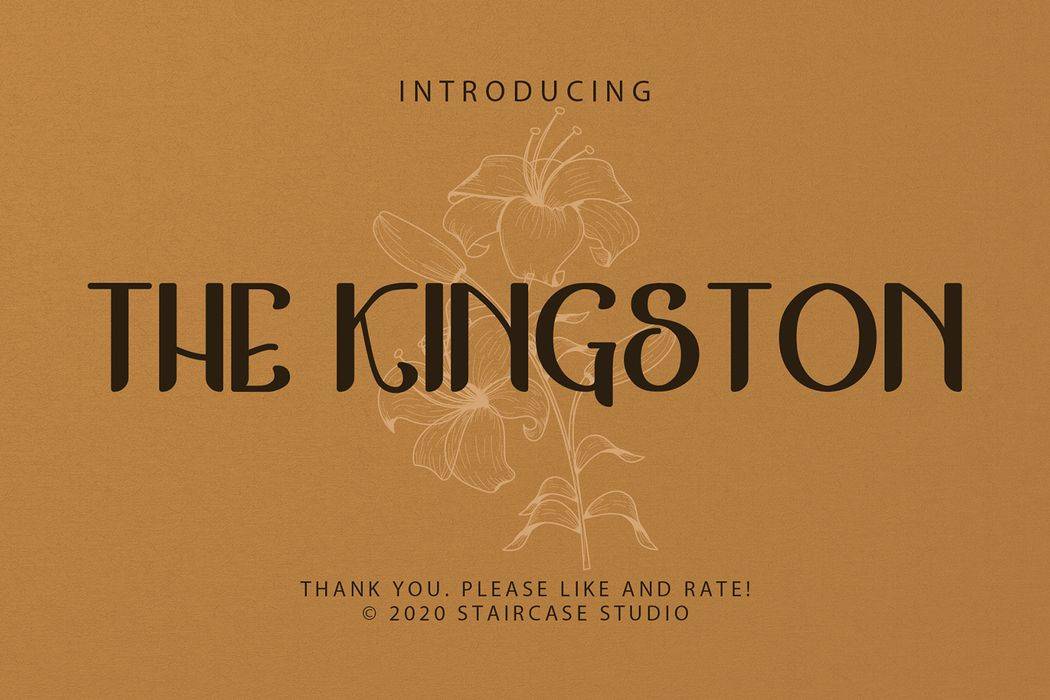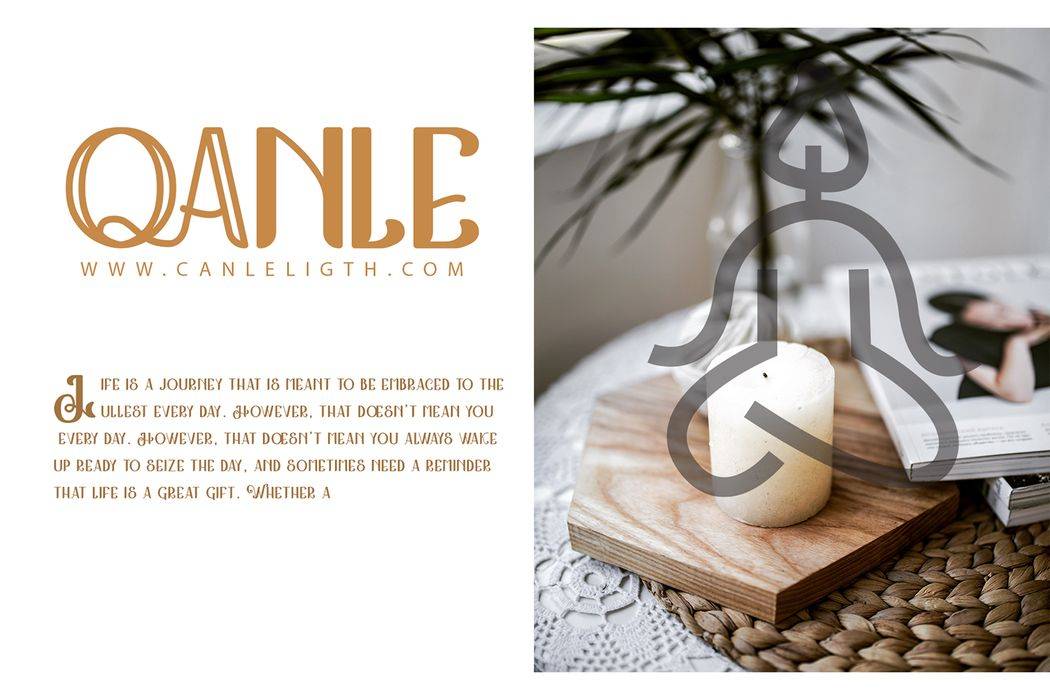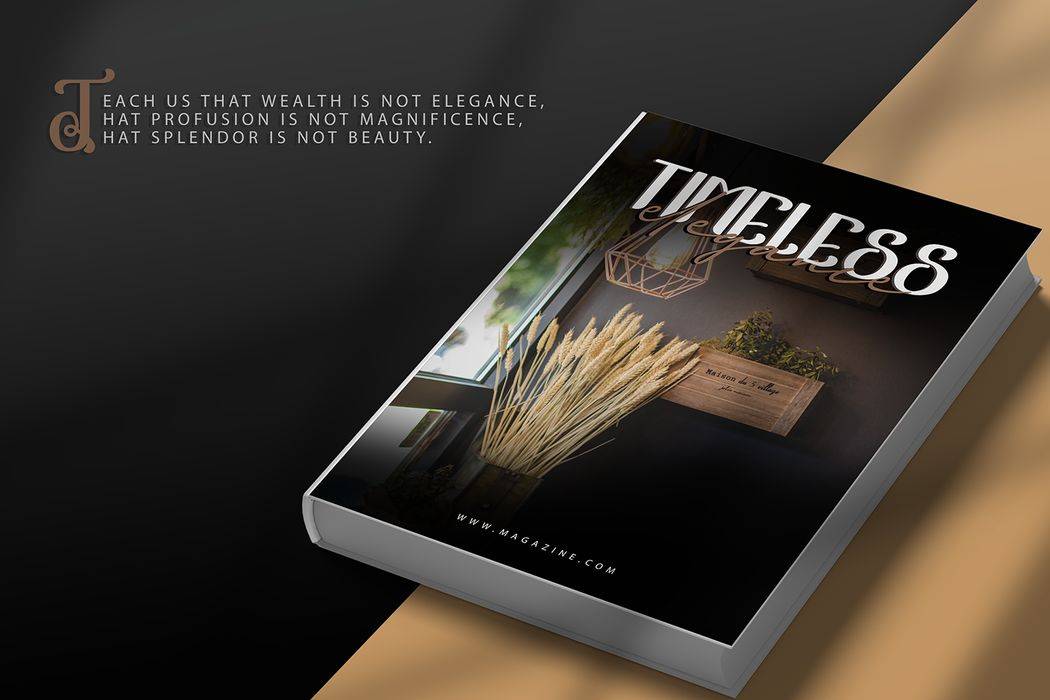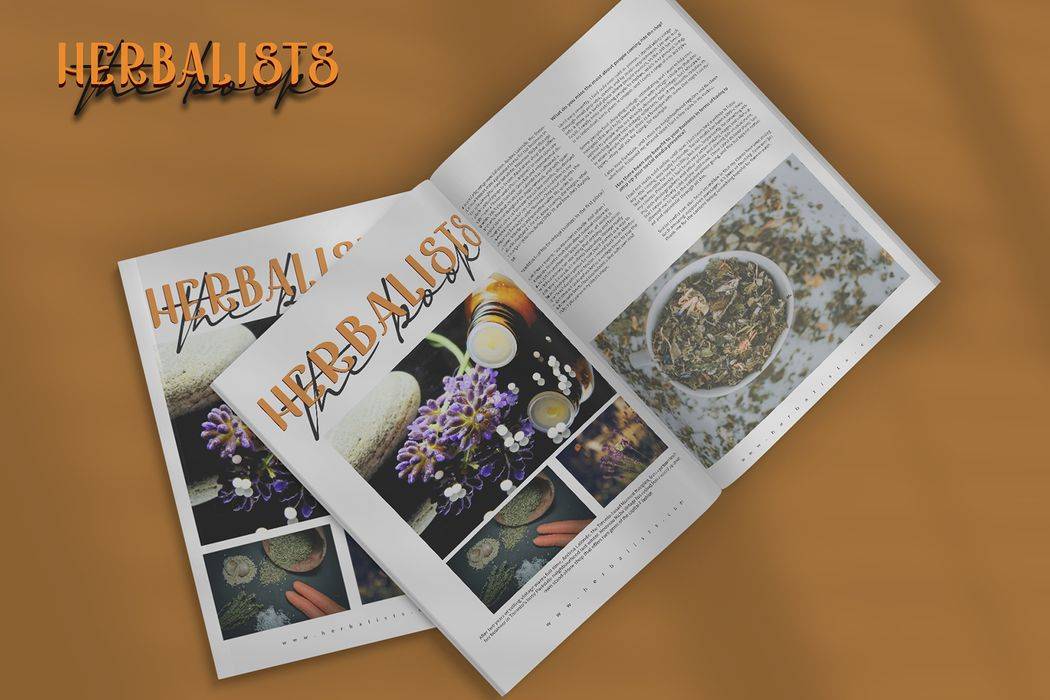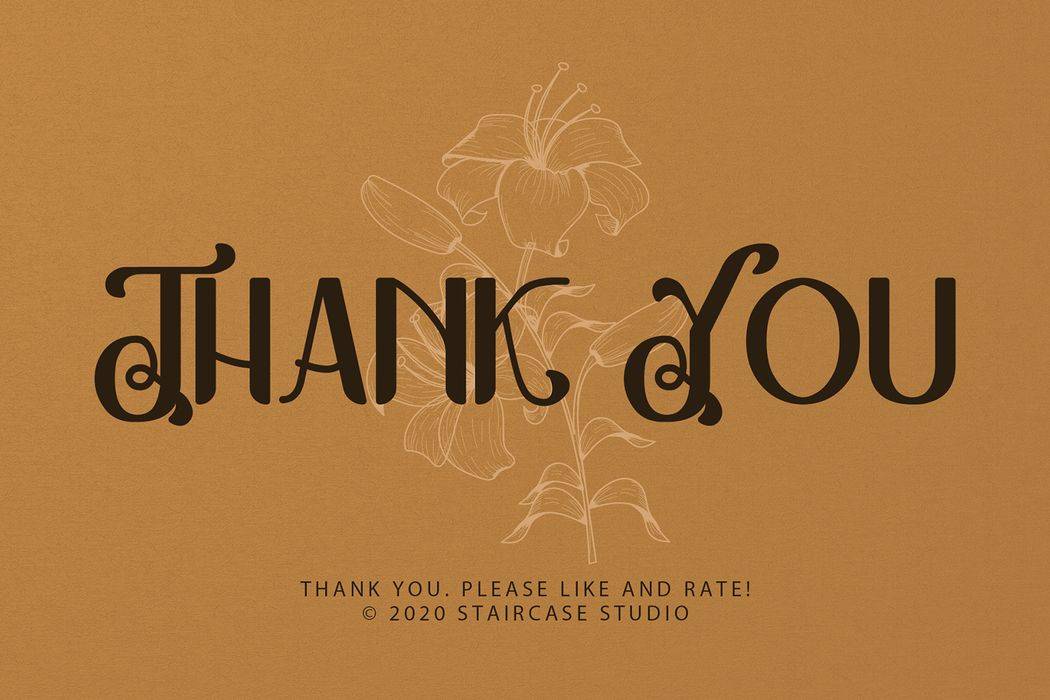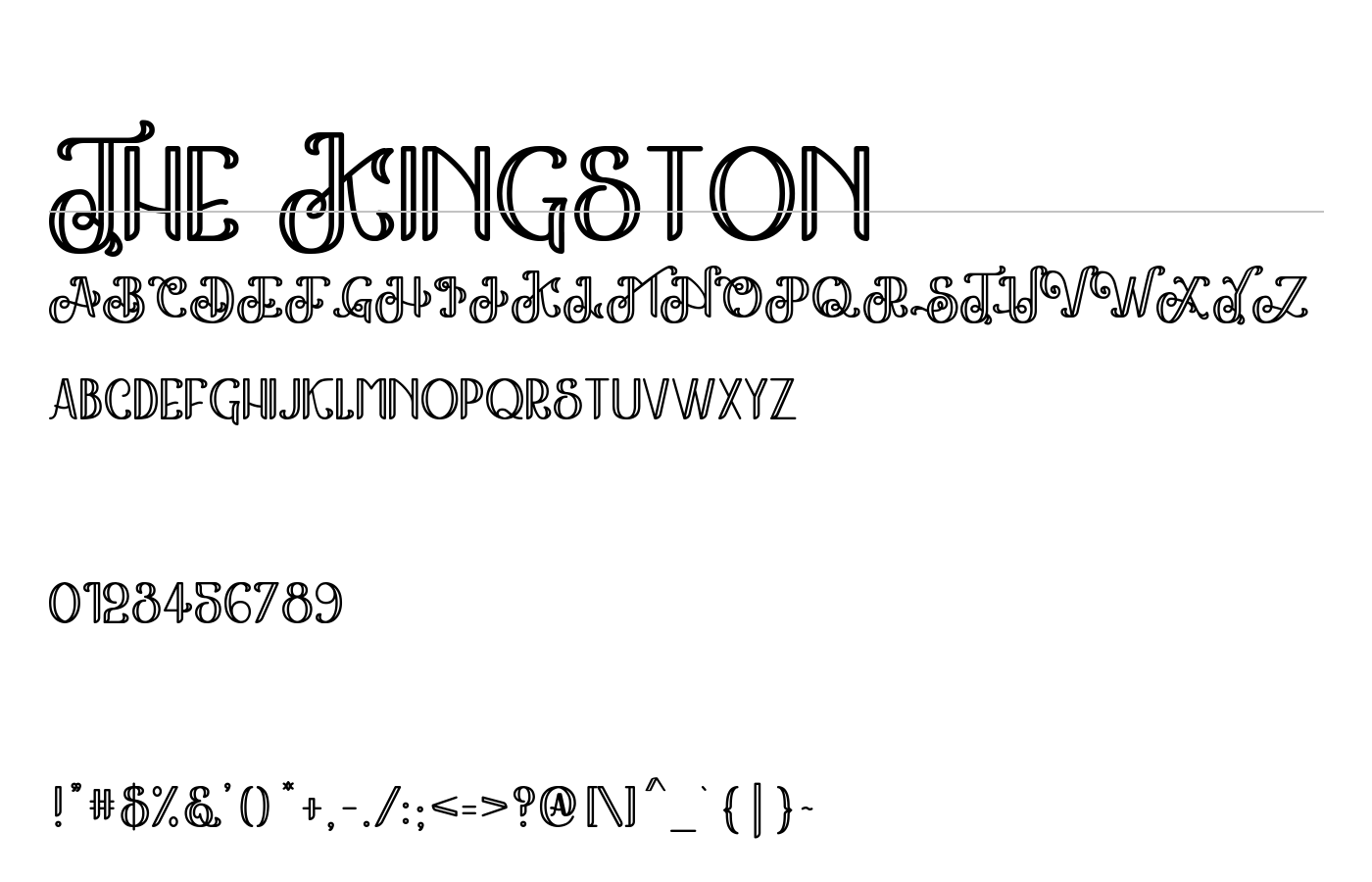
The Kingston Font is a decorative serif typeface with a vintage and whimsical character, featuring playful swirls and delicate lines that give it an ornate, hand-crafted feel. Its slender, elegant strokes combined with unique embellishments make it ideal for eye-catching headlines, logos, and branding projects that want to convey creativity and charm. This font works best where personality and style are key, adding a touch of sophistication and fun to invitations, fashion, and boutique packaging.
The Kingston Font
About The Kingston Font